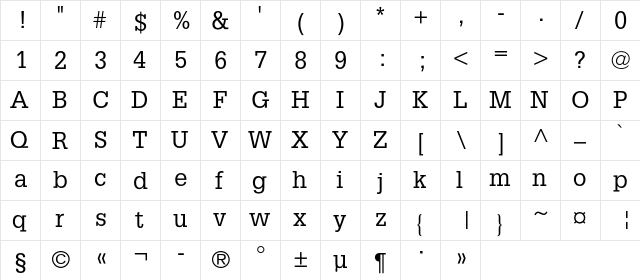
AGGloria Regular
Design Context for AGGloria Typeface
AGGloria takes a measured approach to typography — its balanced proportions and neutral character make it a reliable workhorse for both digital and print work.
Pro Tip: Use AGGloria in both headline and body roles to test its range before committing to a single application.